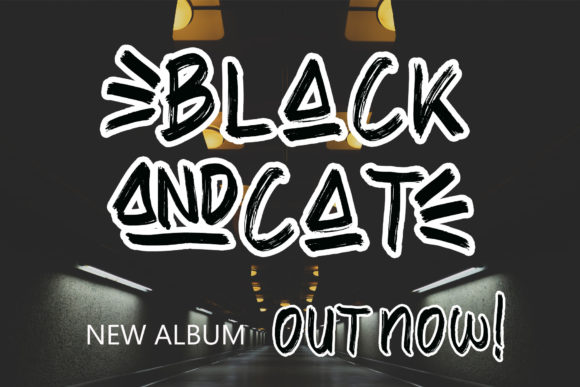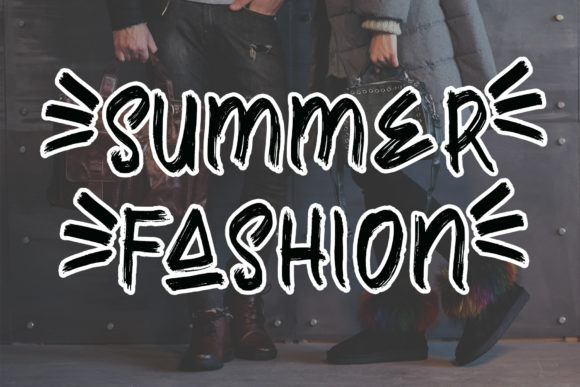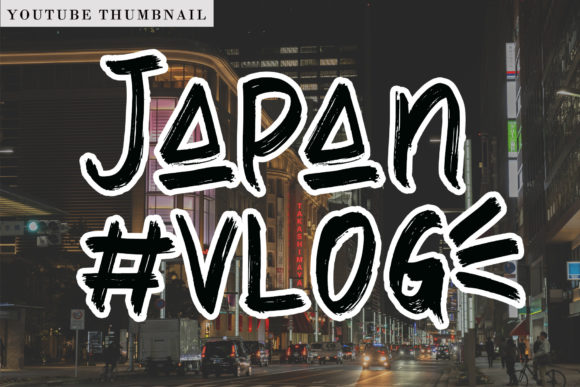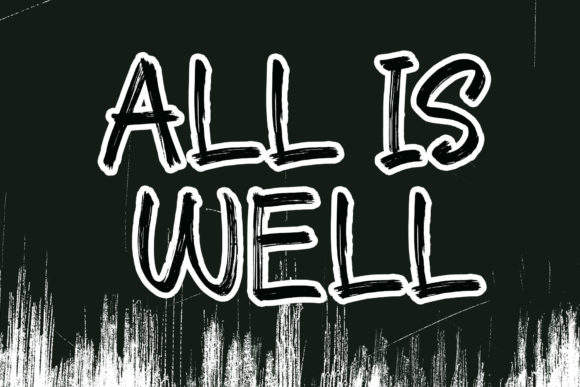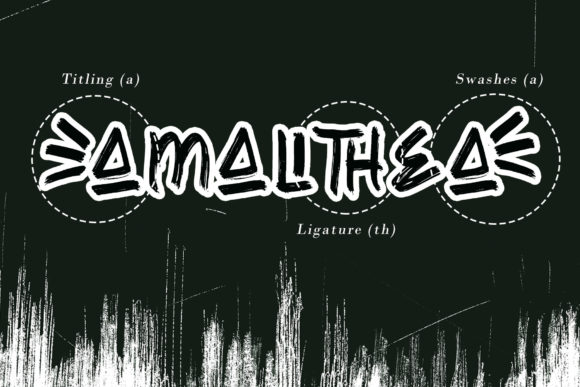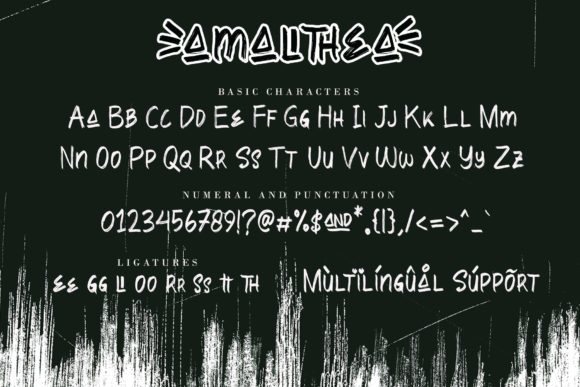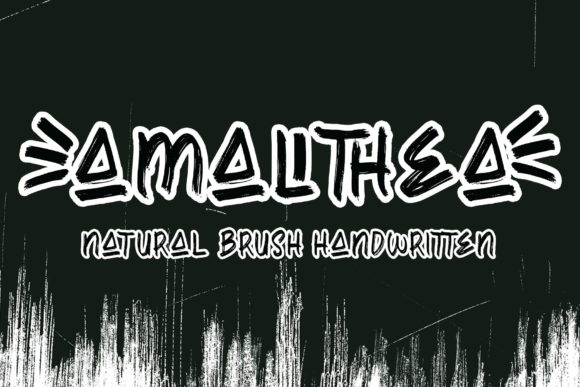
Introducing Amallthea Font: The Natural Dry Brush Font for Creative Designs
Are you a designer or crafter looking for a unique and versatile font to elevate your creative projects? Look no further than Amallthea Font, a stunning natural dry brush font that can add a touch of personality to any design. In this article, we’ll explore the features and benefits of Amallthea Font, and how it can be used for various purposes such as logos, quotes, posters, playful lettering, clothing, and more.
What is Amallthea Font?
Amallthea Font is a beautifully crafted natural dry brush font that mimics the look and feel of hand-painted lettering. With its organic and imperfect strokes, Amallthea Font adds a touch of warmth and humanity to any design. The font is perfect for designers and crafters who want to create unique and eye-catching designs that stand out from the crowd.
Key Features of Amallthea Font
- Natural and Organic Look: Amallthea Font has a natural and organic look that makes it perfect for designs that require a personal touch.
- Dry Brush Effect: The font features a dry brush effect that gives it a unique and textured look.
- Versatile: Amallthea Font can be used for various purposes such as logos, quotes, posters, playful lettering, clothing, and more.
Uses of Amallthea Font
Amallthea Font is a versatile font that can be used for a wide range of design projects. Here are some ideas to get you started:
- Logos: Use Amallthea Font to create a unique and memorable logo for your business or brand.
- Quotes and Posters: Add a touch of personality to your quotes and posters with Amallthea Font.
- Playful Lettering: Use Amallthea Font to create playful and eye-catching lettering for your designs.
- Clothing and Apparel: Amallthea Font is perfect for designing t-shirts, hoodies, and other clothing items.
- Stationery and Packaging: Use Amallthea Font to add a personal touch to your stationery and packaging designs.
Benefits of Using Amallthea Font
There are many benefits to using Amallthea Font in your design projects. Here are a few:
- Unique and Eye-Catching: Amallthea Font is a unique and eye-catching font that can help your designs stand out from the crowd.
Amallthea Font is a stunning natural dry brush font that can add a touch of personality to any design. With its organic and imperfect strokes, Amallthea Font is perfect for designers and crafters who want to create unique and eye-catching designs. Whether you’re creating logos, quotes, posters, playful lettering, clothing, or stationery, Amallthea Font is a versatile and cost-effective solution that can help you achieve your design goals.